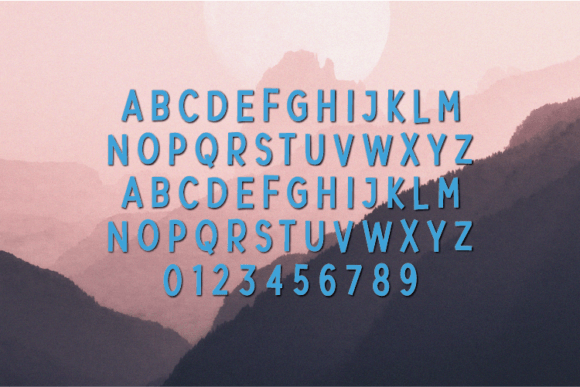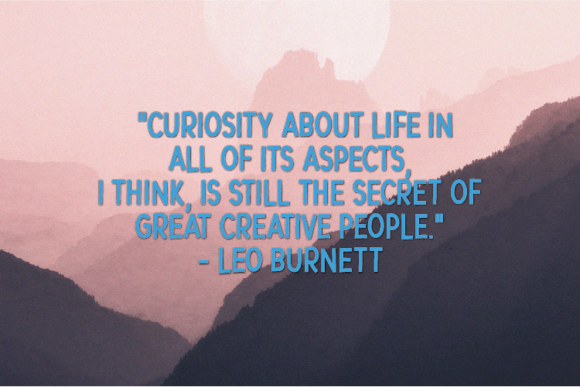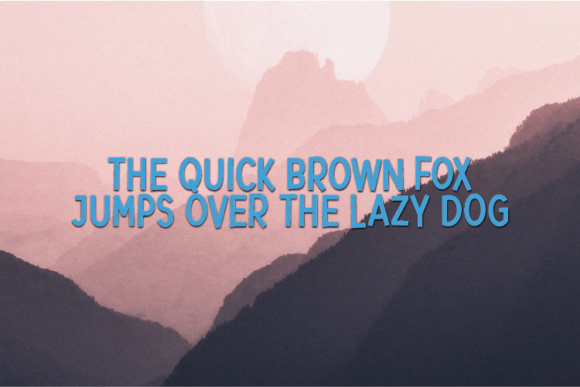
Introduction to Natured Font
Natured is a beautiful sans serif font that will make a wonderful asset to your collection.
Add it to your logos, quotes, T-shirts, greeting cards, business cards, and many more, and make them outstanding .
Key Features of Natured Font